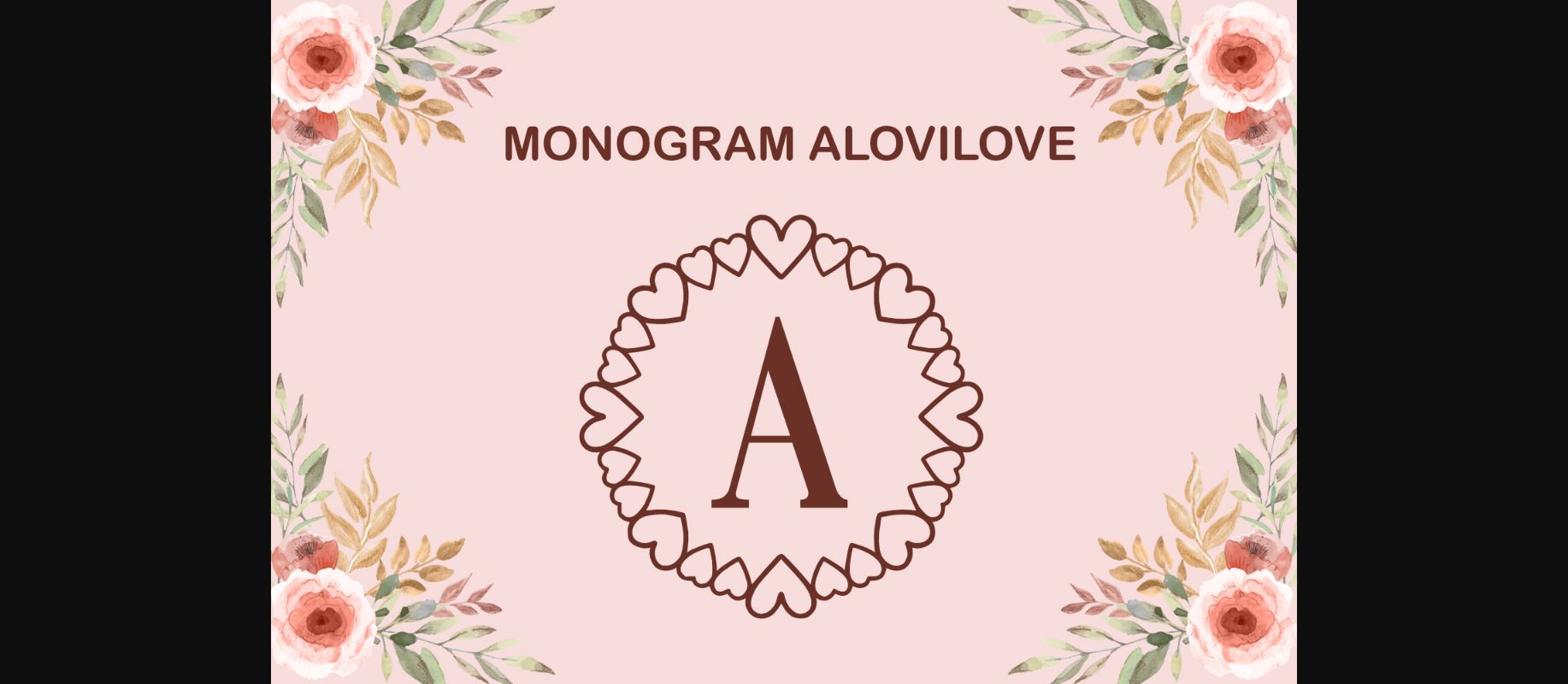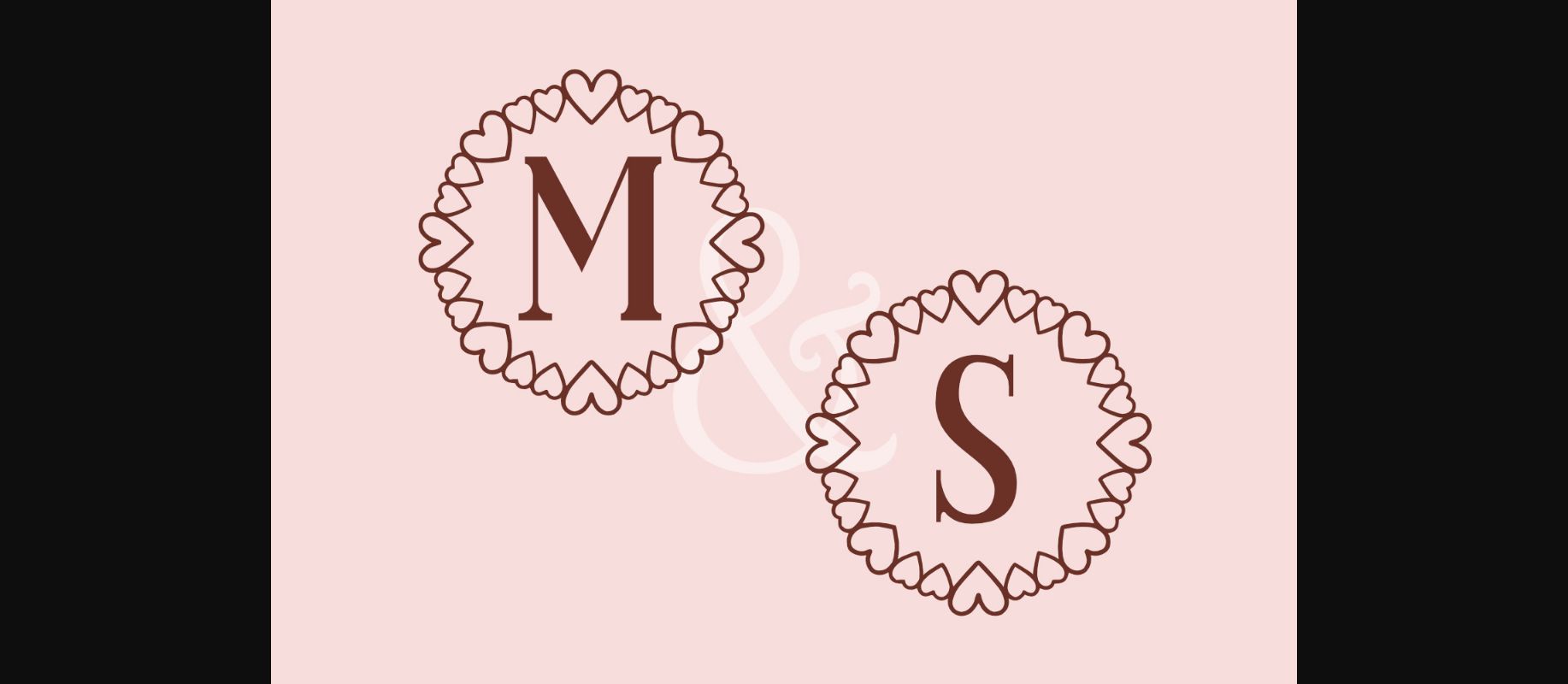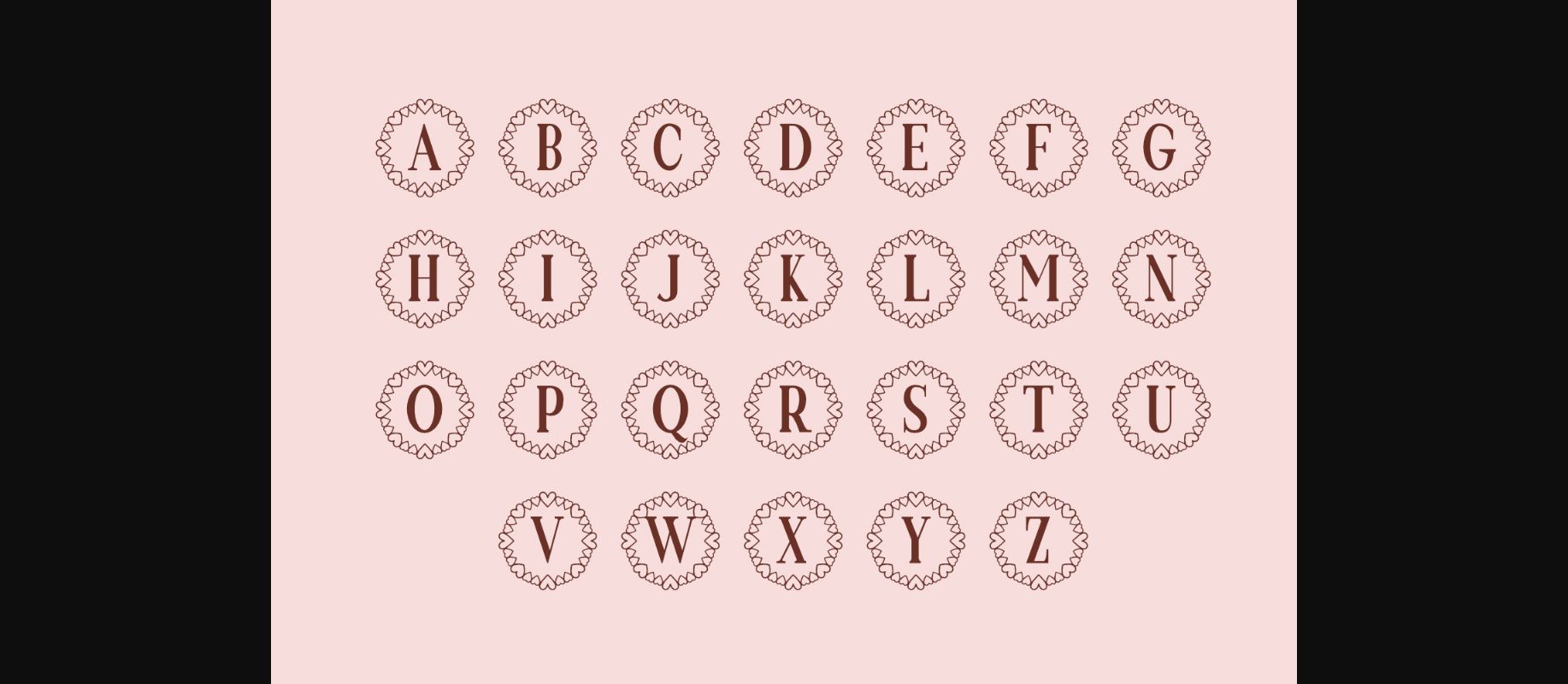
Monogram Alovilove Font
About Monogram Alovilove Font
Monogram Alovilove is a beautiful monogram font. This decorative font will add a feeling of love to any craft idea, be it wedding crafts, invitations, greeting cards, Valentines, logos, and others.